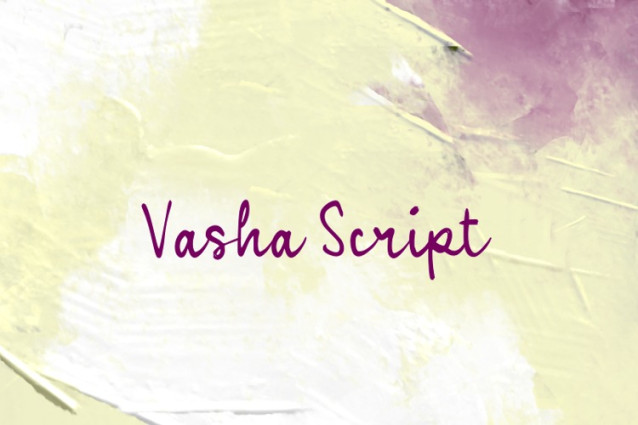
Vasha Script Font
Vasha Script Font, is a simple and friendly handwritten font. Its natural and unique style makes it incredibly fitting to a large pool of designs. The only limit is your imagination!